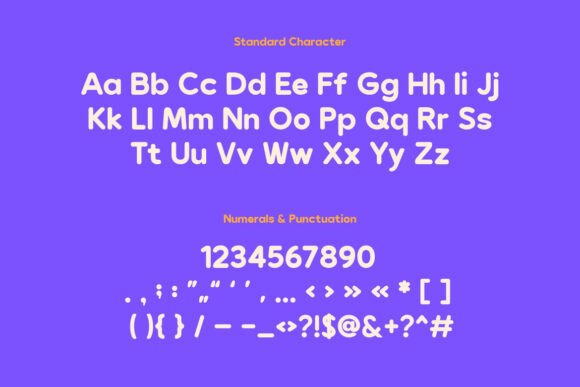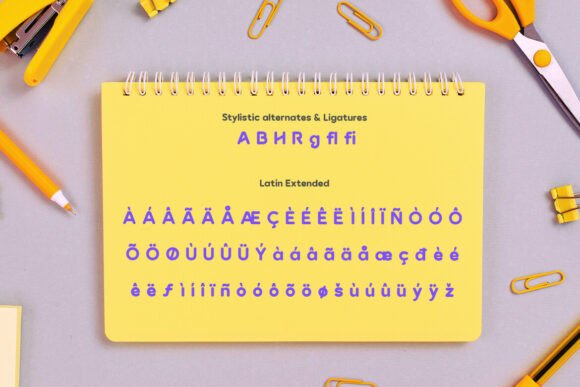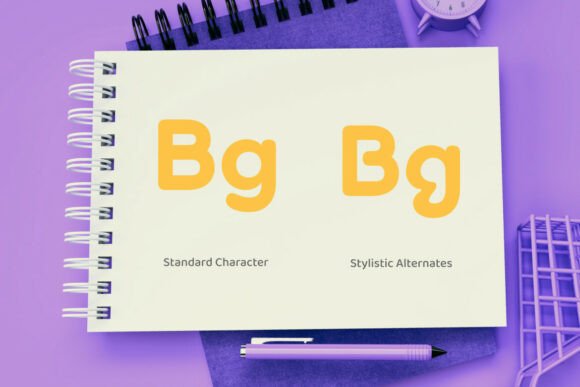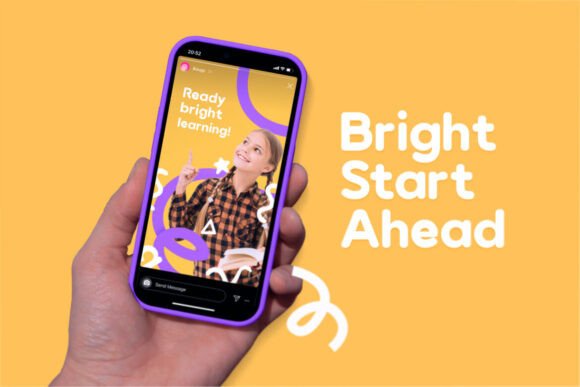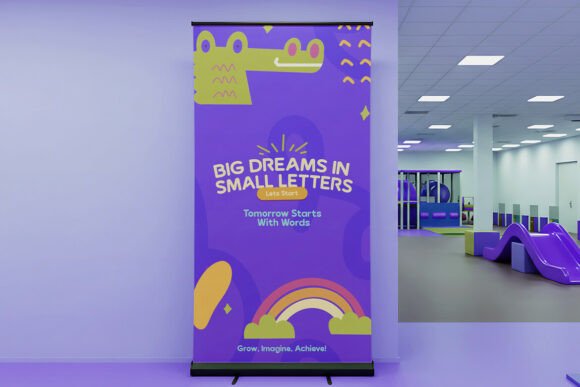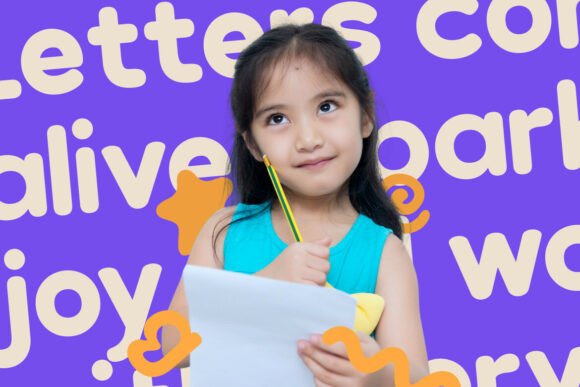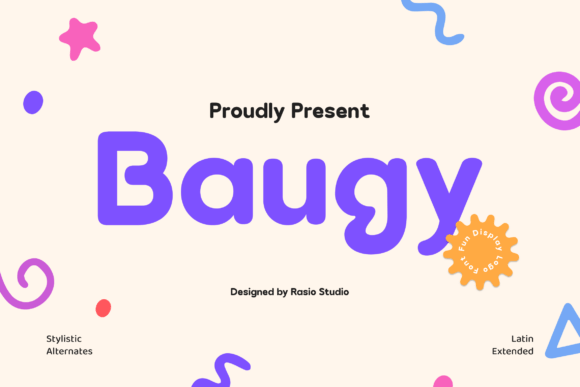
Introducing Baugy Font: The Ultimate Bold and Playful Display Logo Font
In the world of modern branding, a font can make all the difference in setting a brand apart from the rest. Baugy Font is a bold, playful display logo font designed to bring energy and personality into your brand’s visual identity. With its thick rounded letterforms, smooth curves, and friendly geometric structure, Baugy delivers a strong visual impact while maintaining excellent readability.
Key Features of Baugy Font
Baugy Font boasts an impressive range of features that make it an ideal choice for designers and crafters. Some of its key features include:
- Uppercase and lowercase characters
- Numerals and punctuation
- Stylistic alternates for added versatility
- Latin Extended multilingual support for global reach
The Benefits of Baugy Font
Baugy’s soft yet bold construction makes it perfect for a wide range of applications, including:
- Logos and brand identity systems
- Packaging design
- Headlines and social media graphics
- Merchandise and promotional materials
- YouTube thumbnails and posters
Who is Baugy Font Suitable For?
Baugy Font is highly suitable for modern brands, startups, tech products, lifestyle businesses, and anyone looking to create a bold and playful visual identity. Its bold rounded form makes it especially effective for:
- Logo design and brand identity systems
- Promotional materials and contemporary digital content
- Social media campaigns and online advertising
The Power of Bold and Playful Typography
In today’s competitive market, a brand’s typography can make or break its visual identity. Baugy Font’s bold and playful design allows brands to convey a confident yet friendly tone, setting them apart from the competition. With Baugy, you can:
- Create eye-catching logos and branding materials
- Add personality to your digital content
- Establish a consistent visual identity across platforms
Why Choose Baugy Font?
Baugy Font offers a unique combination of boldness, playfulness, and readability, making it an excellent choice for designers and crafters. Here are just a few reasons why you should consider Baugy for your next project:
- Unique and distinctive design
- Highly versatile and adaptable
- Excellent readability and legibility
- Multilingual support for global reach
Baugy Font is a bold, playful display logo font that is sure to bring energy and personality into your brand’s visual identity. With its thick rounded letterforms, smooth curves, and friendly geometric structure, Baugy delivers a strong visual impact while maintaining excellent readability. Whether you’re a designer, crafter, or brand owner, Baugy Font is an excellent choice for anyone looking to create a bold and playful visual identity.